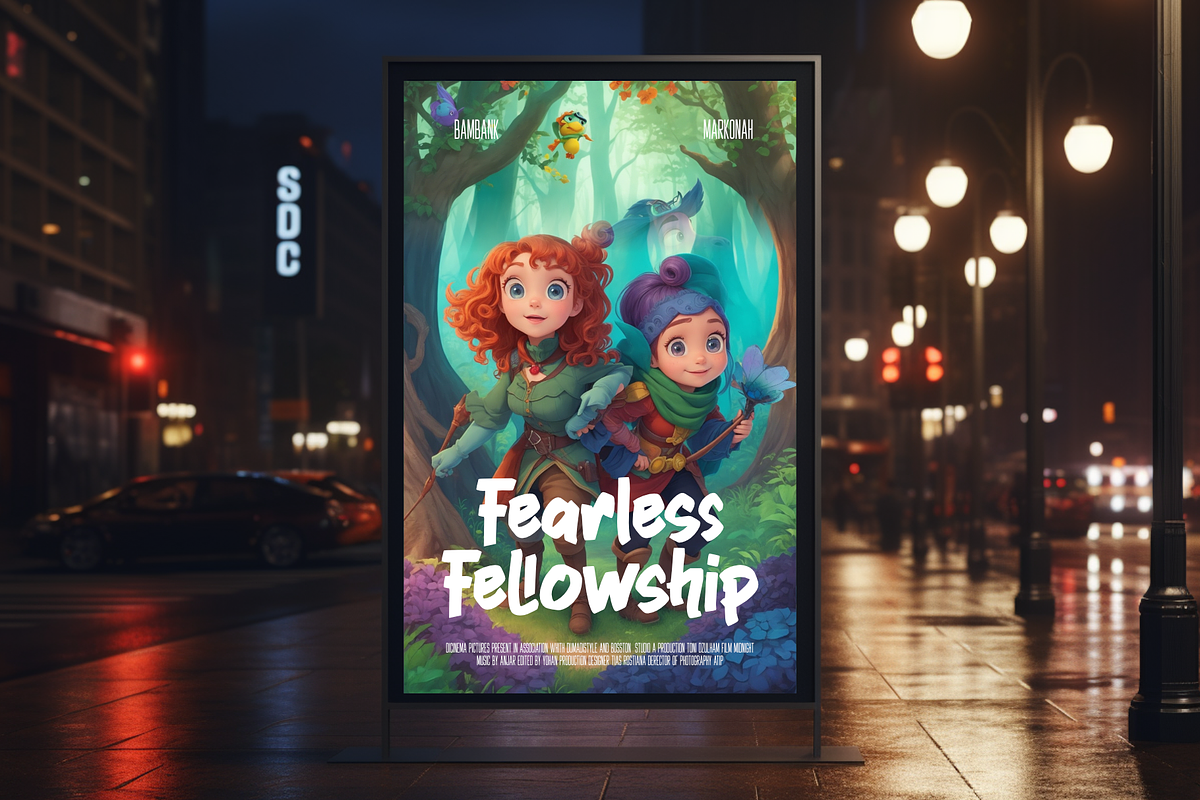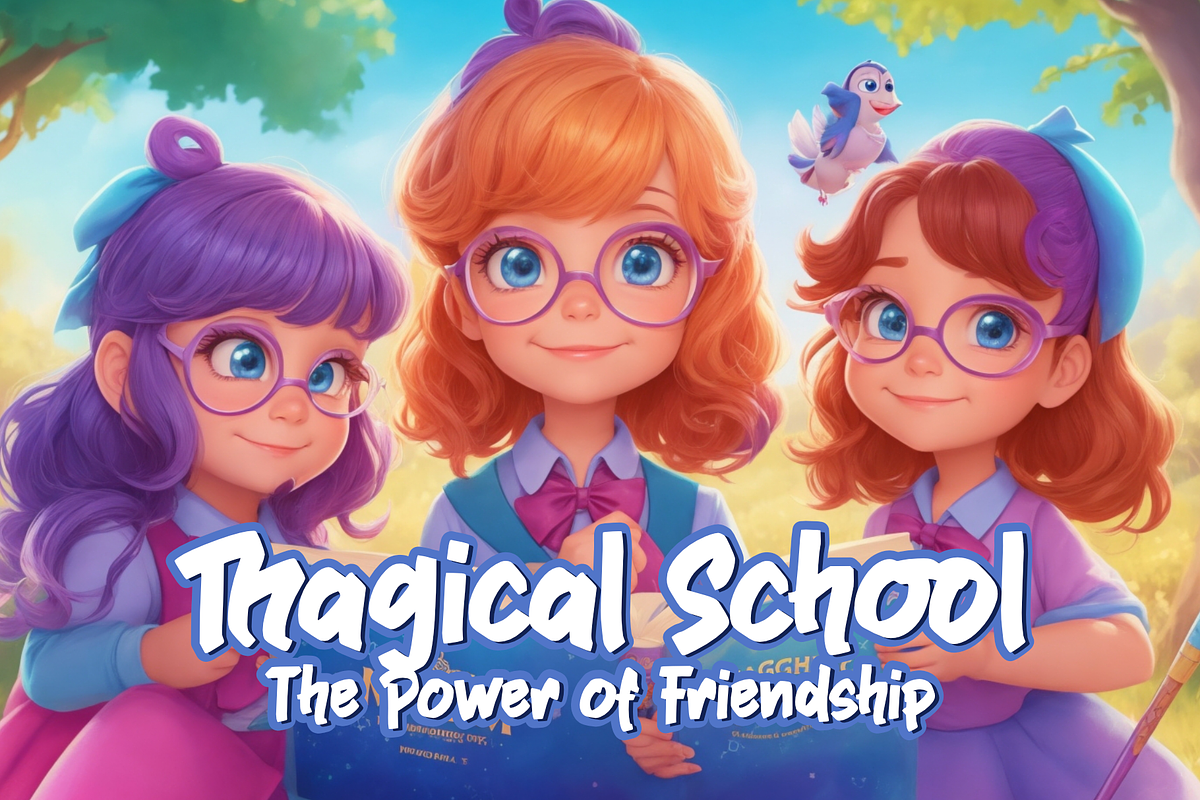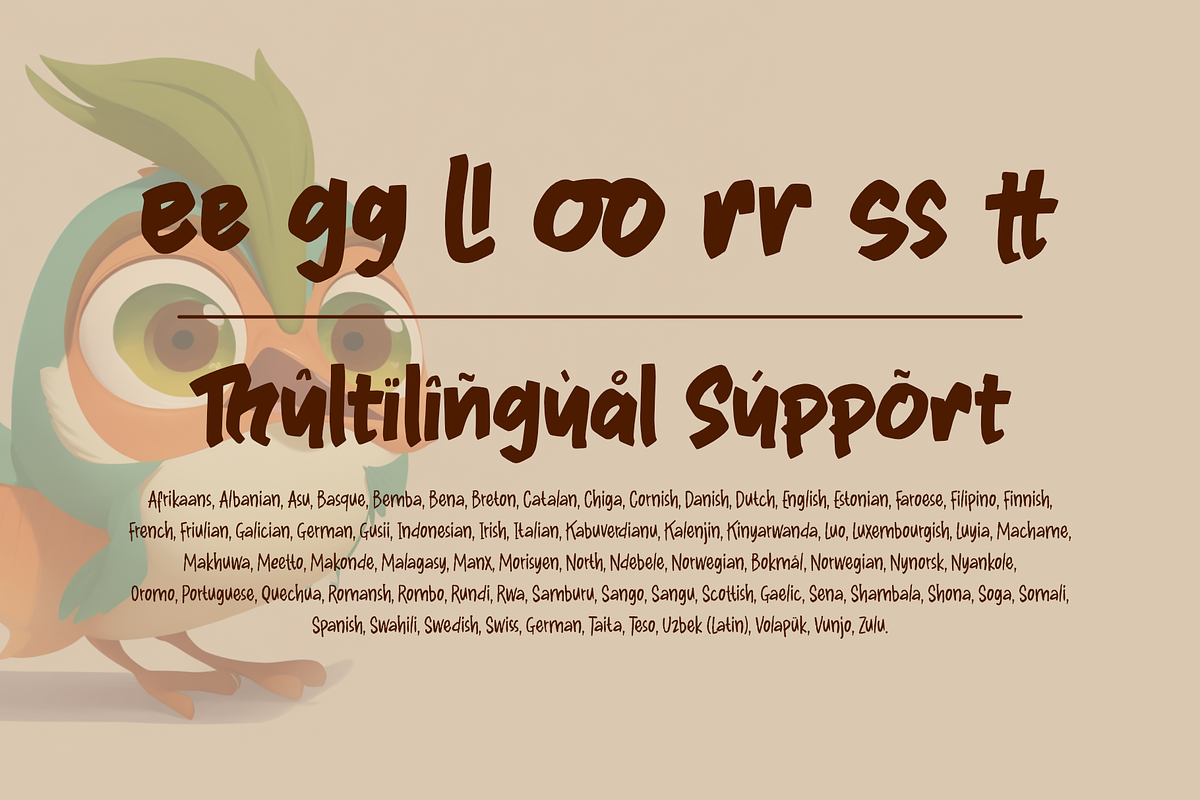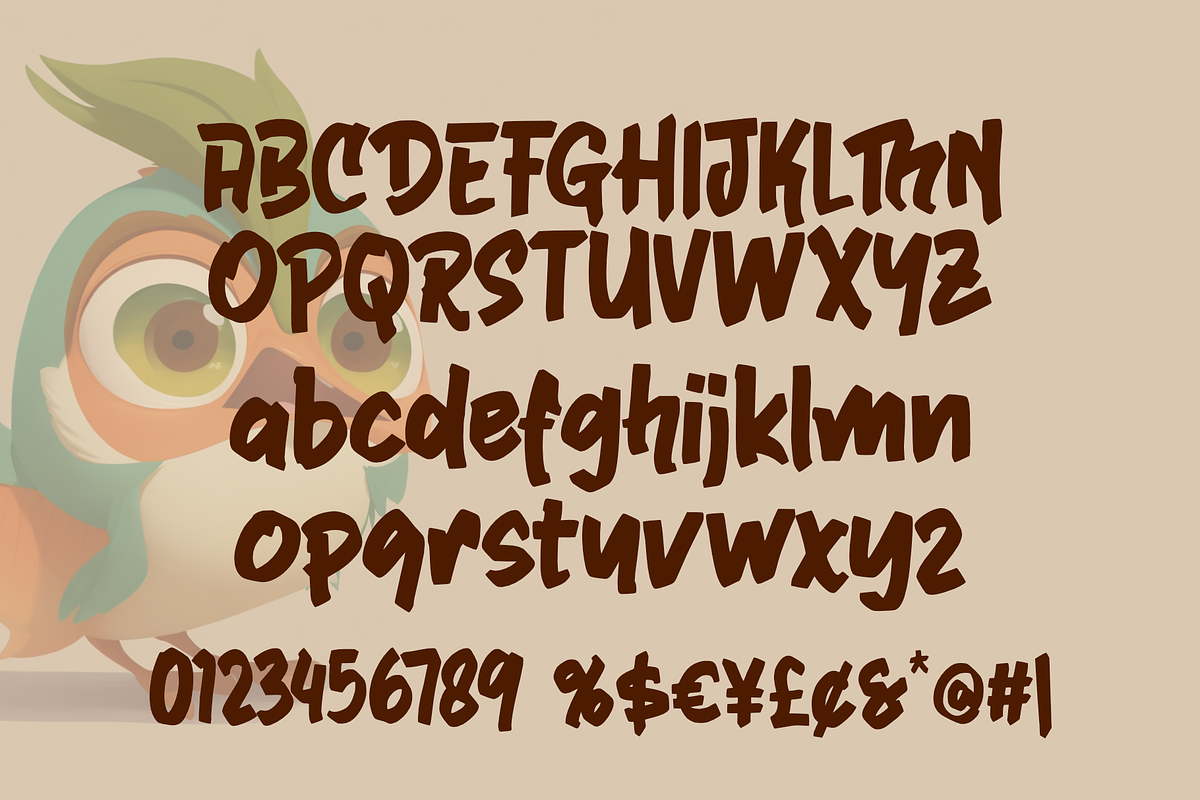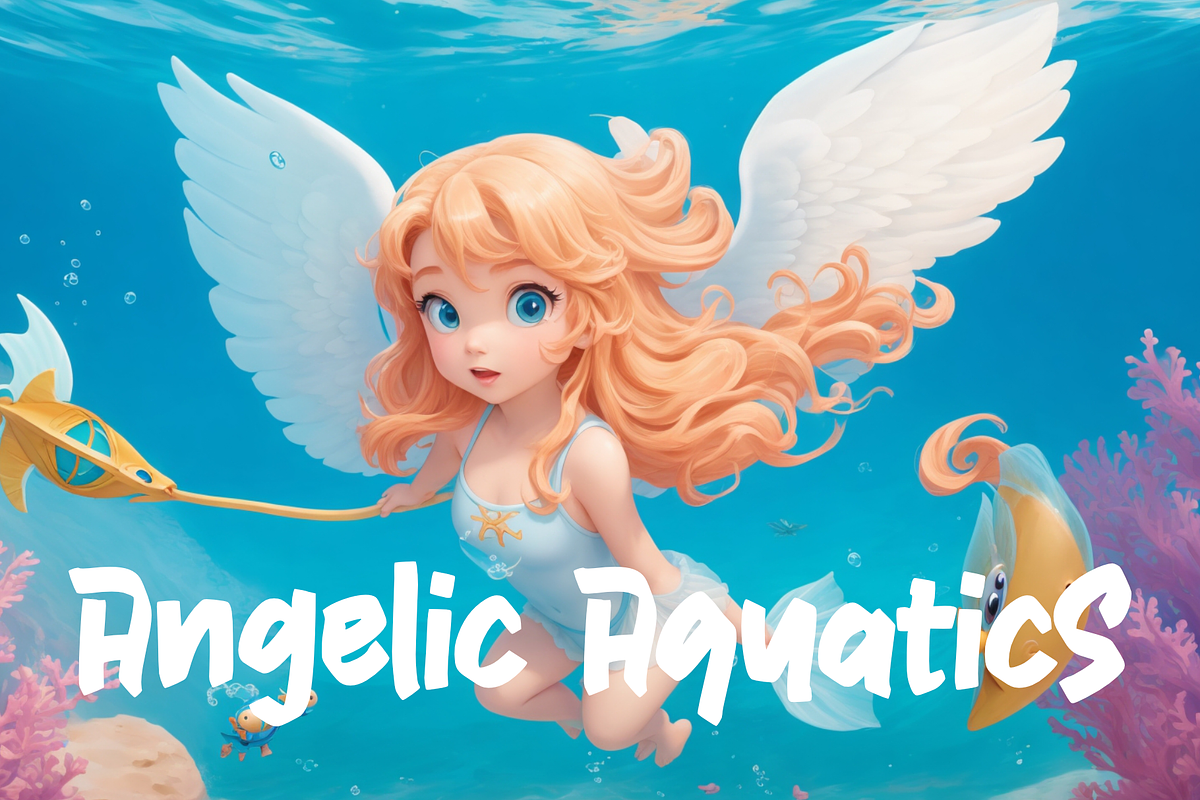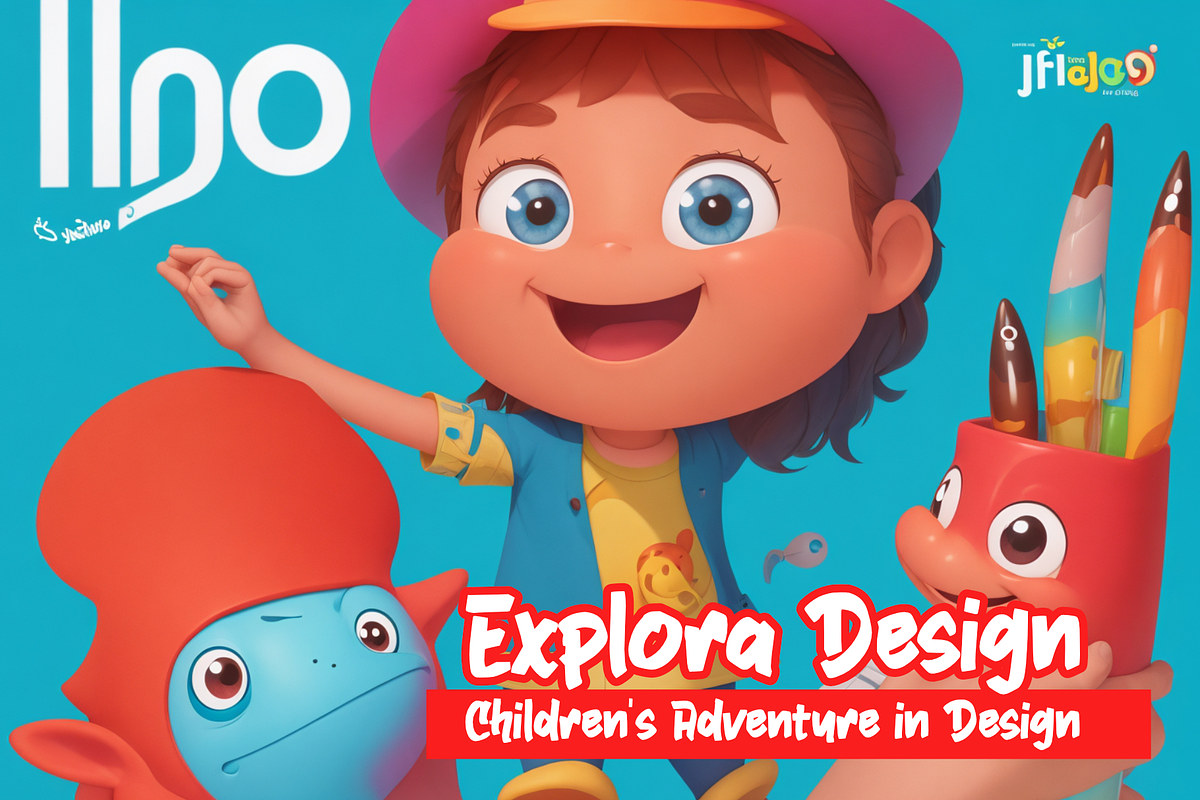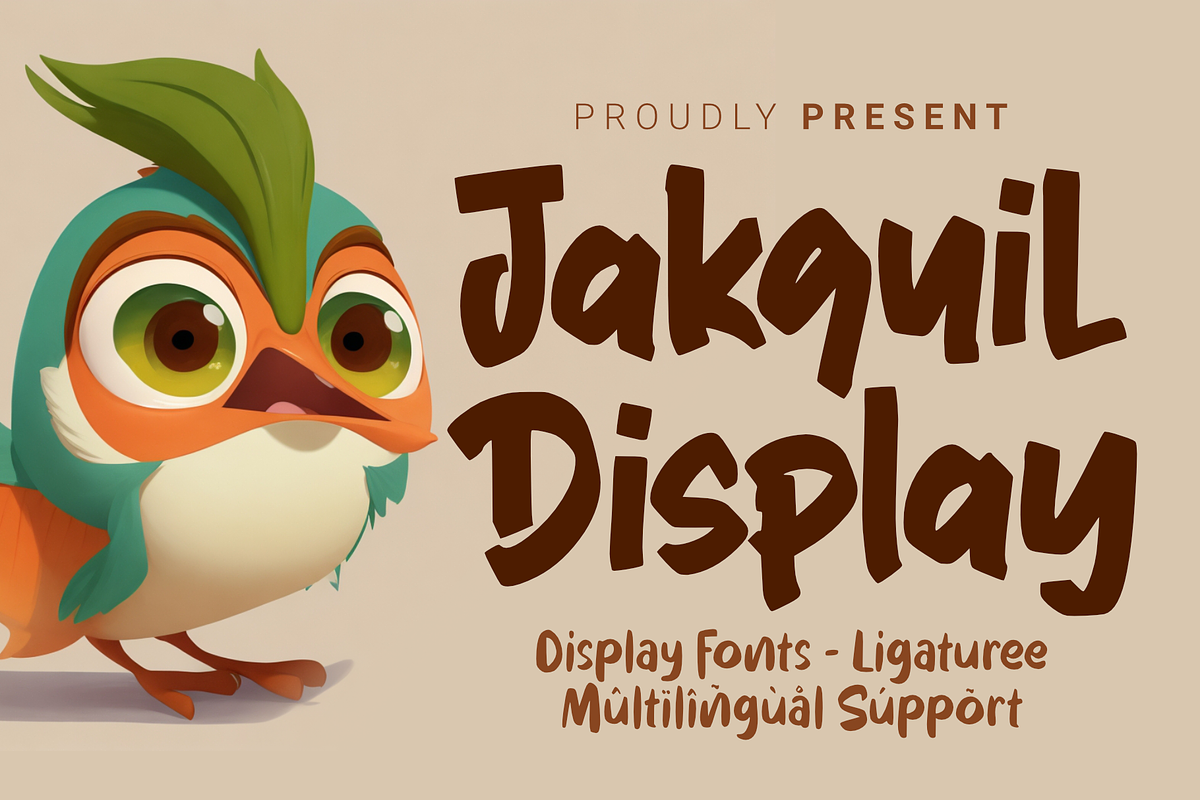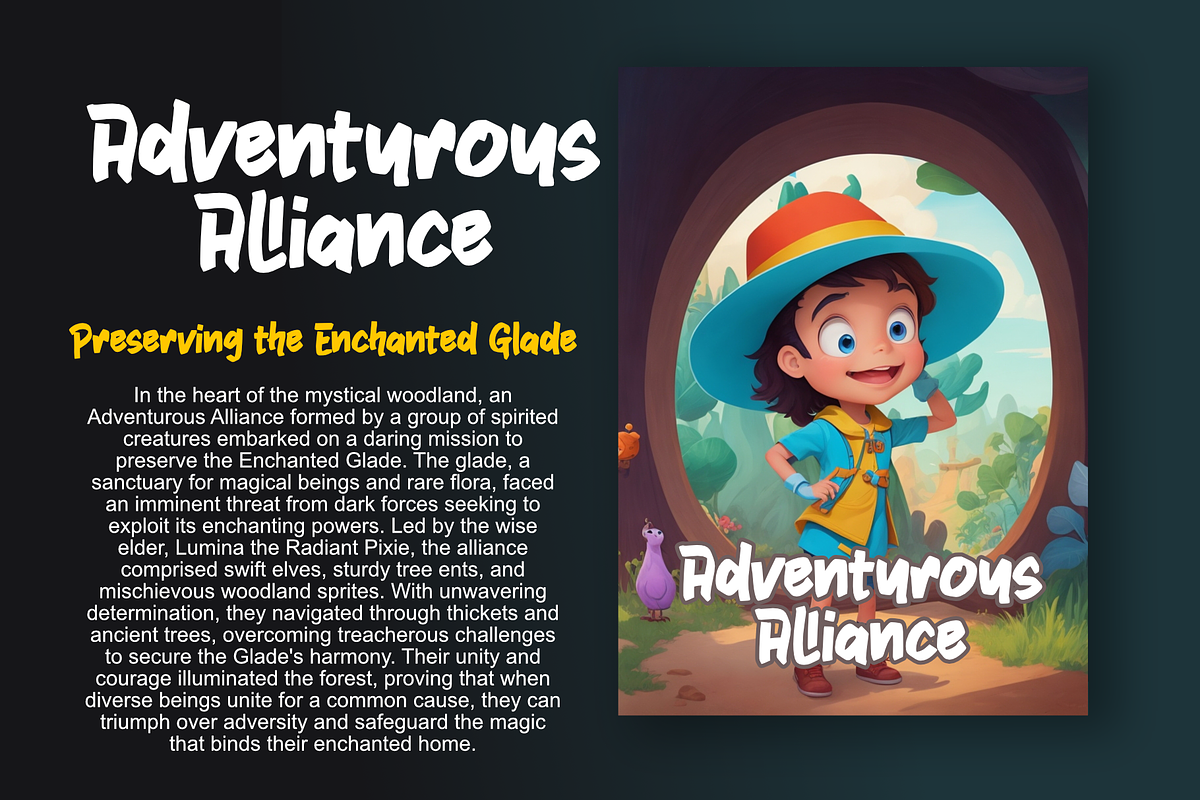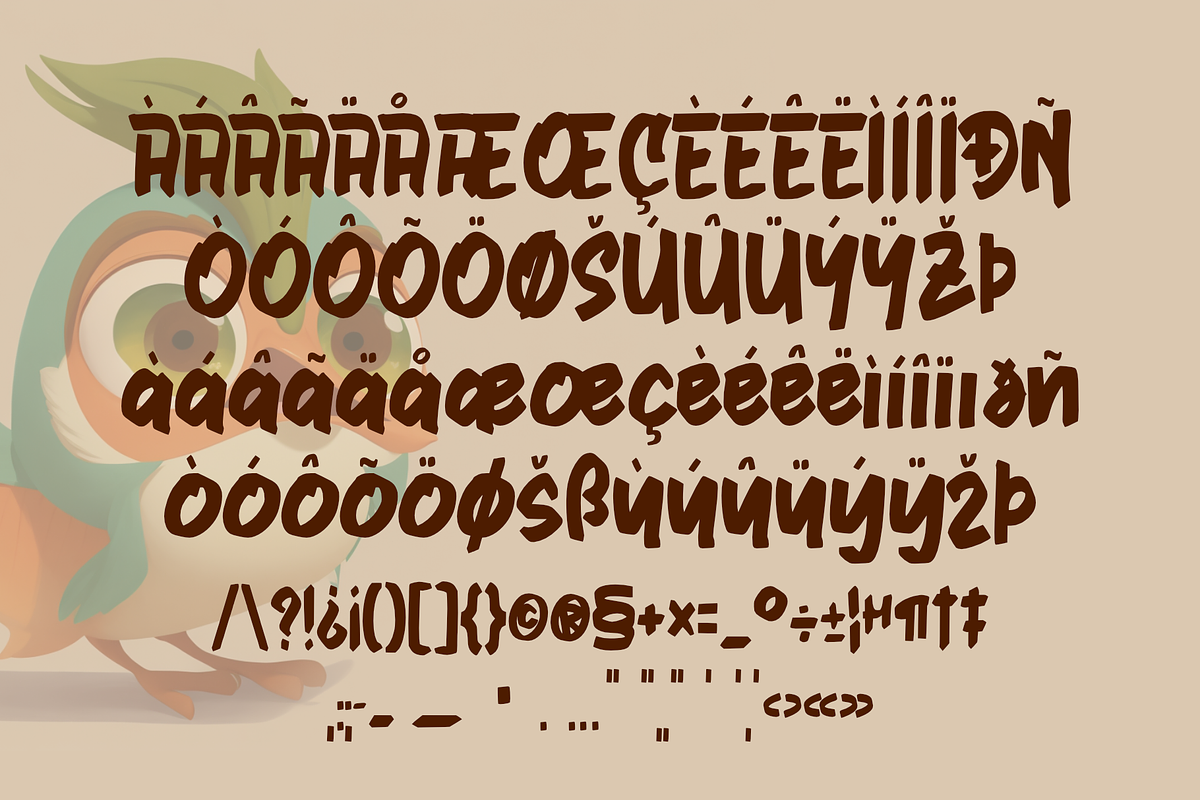
Jackquil Display
Jackquil Display is a display font that brings joy and uniqueness, perfect for children's design projects. With its playful design and friendly characters, Jackquil Display captures the imagination of children in every letter. Its bold lines and whimsical shapes add a magical touch to each word, creating a delightful and creative atmosphere. This font is ideal for various projects such as storybooks, posters, and educational materials, bringing fun and a love for learning to every child who interacts with it. Jackquil Display is a faithful companion in crafting designs that inspire the spirit and imagination of children.